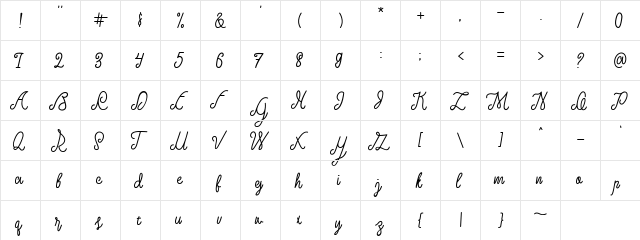
Larquette Typeface Regular
Design Context for Larquette Typeface
Larquette Typeface takes a measured approach to typography — its balanced proportions and neutral character make it a reliable workhorse for both digital and print work.